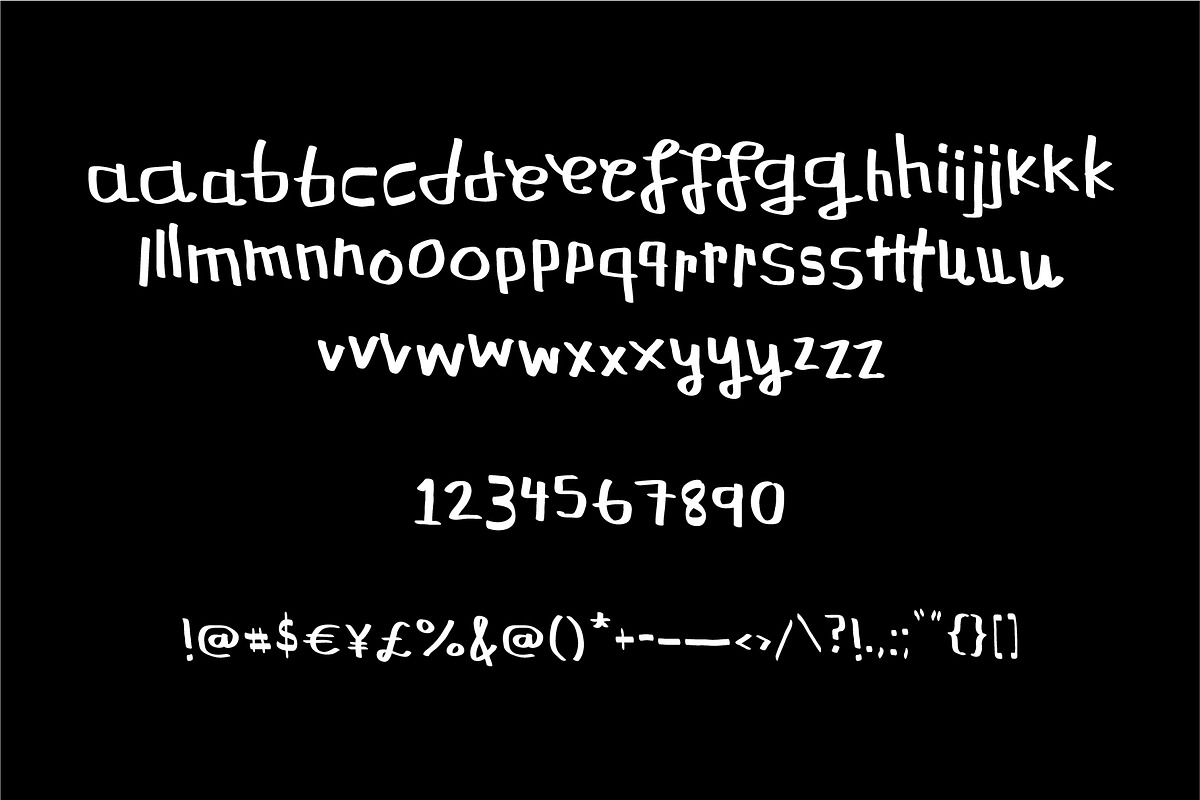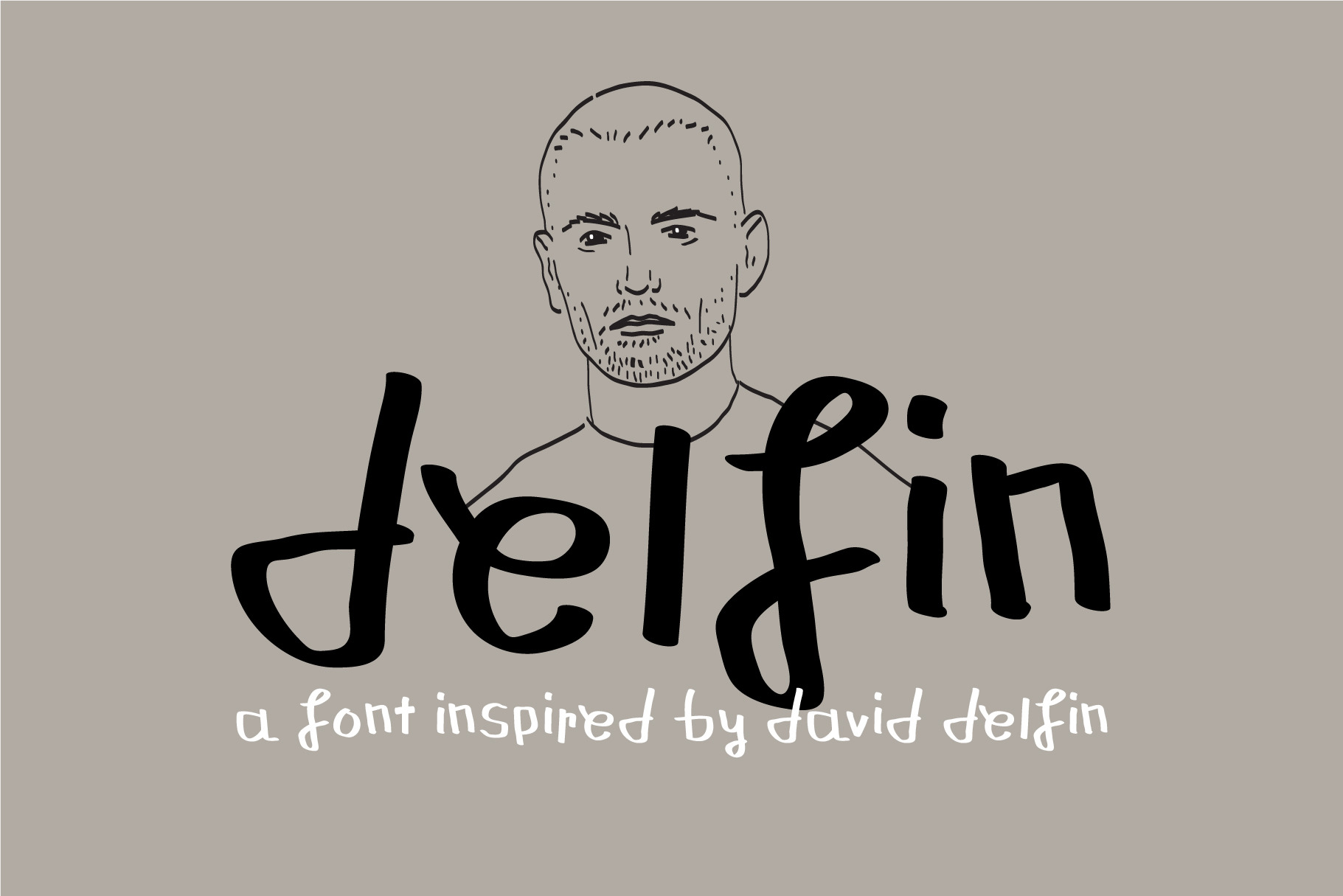
Delfin Handwritten Display Font
Delfin is a lowercase display font based off the unique handwriting of David Delfin, a Spanish designer. Its rough, organic vibe looks amazing paired with very refined serif and sans serif typefaces. Alternates (2-3 per letter) are included to give more of an authentic, hand drawn look.
This font has one weight and a limited character set (its entirety is pictured above).